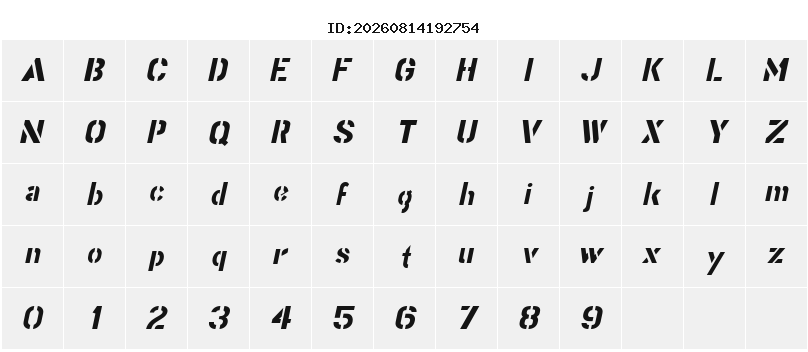
• Font Name: Stencil Gothic Italic JL
• Designer: Jeffrey N. Levine
• Manufacturer: Jeff's Fonts & Dingbats
• Description: "Stencil Gothic Italic JL".
Stencil Gothic Italic JL.ttf is a modern, elegant sans-serif font designed for ultimate readability and visual harmony. Perfect for branding, headlines, web design, and print materials.